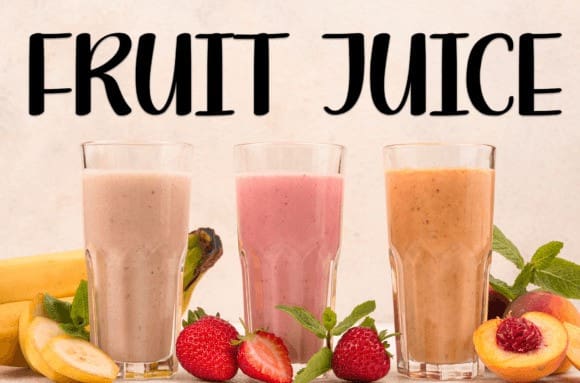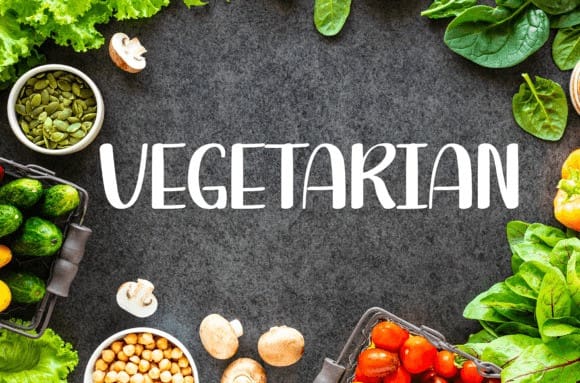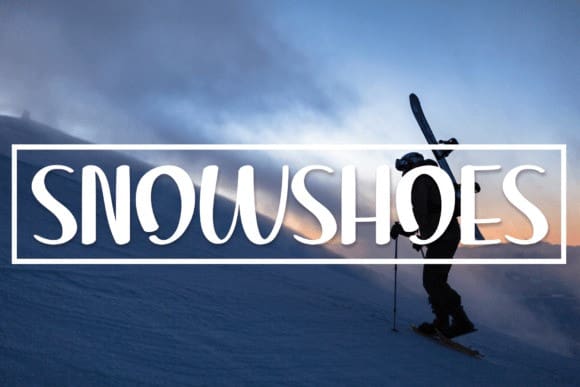
Snowshoes Cute Font
Snowshoes Cute Font is a sweet and friendly handwritten font. Fun and relaxed, this font is ideal for writing wedding invitations, cards, or any other design that might need a lovely touch!